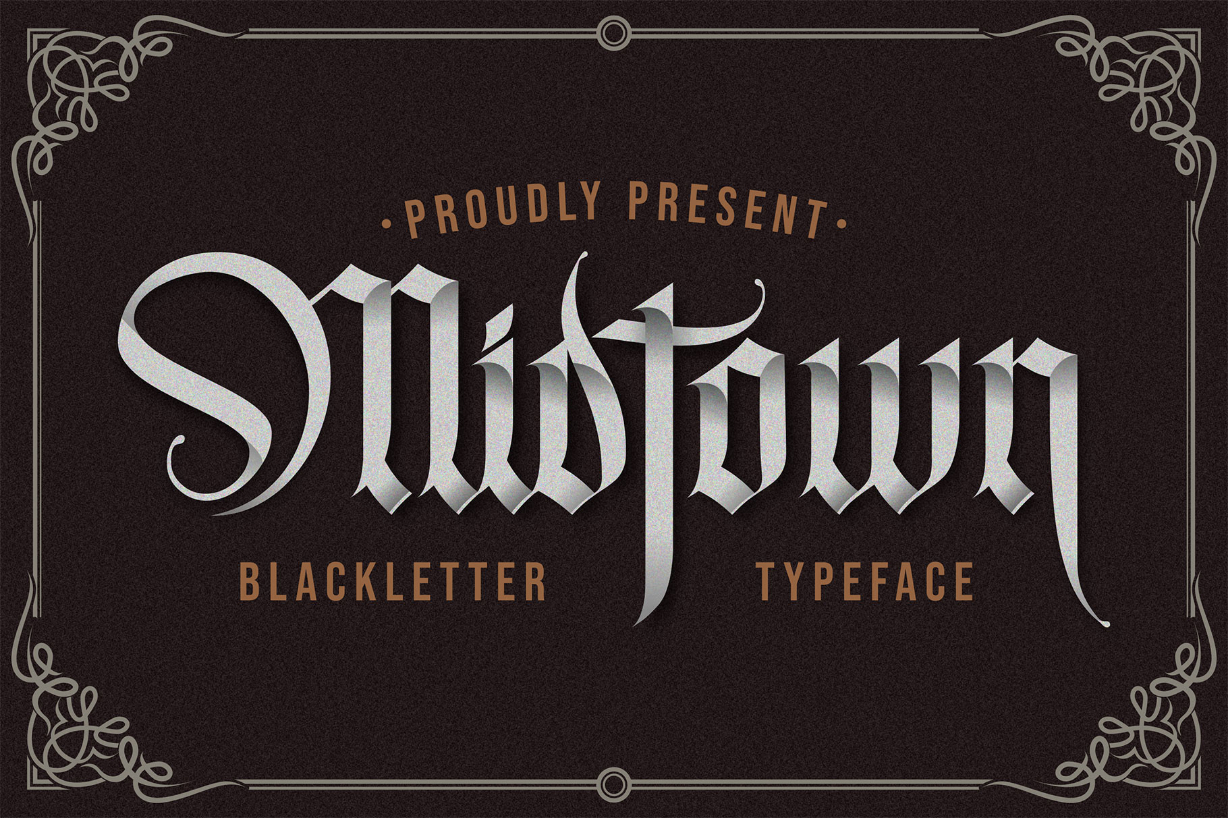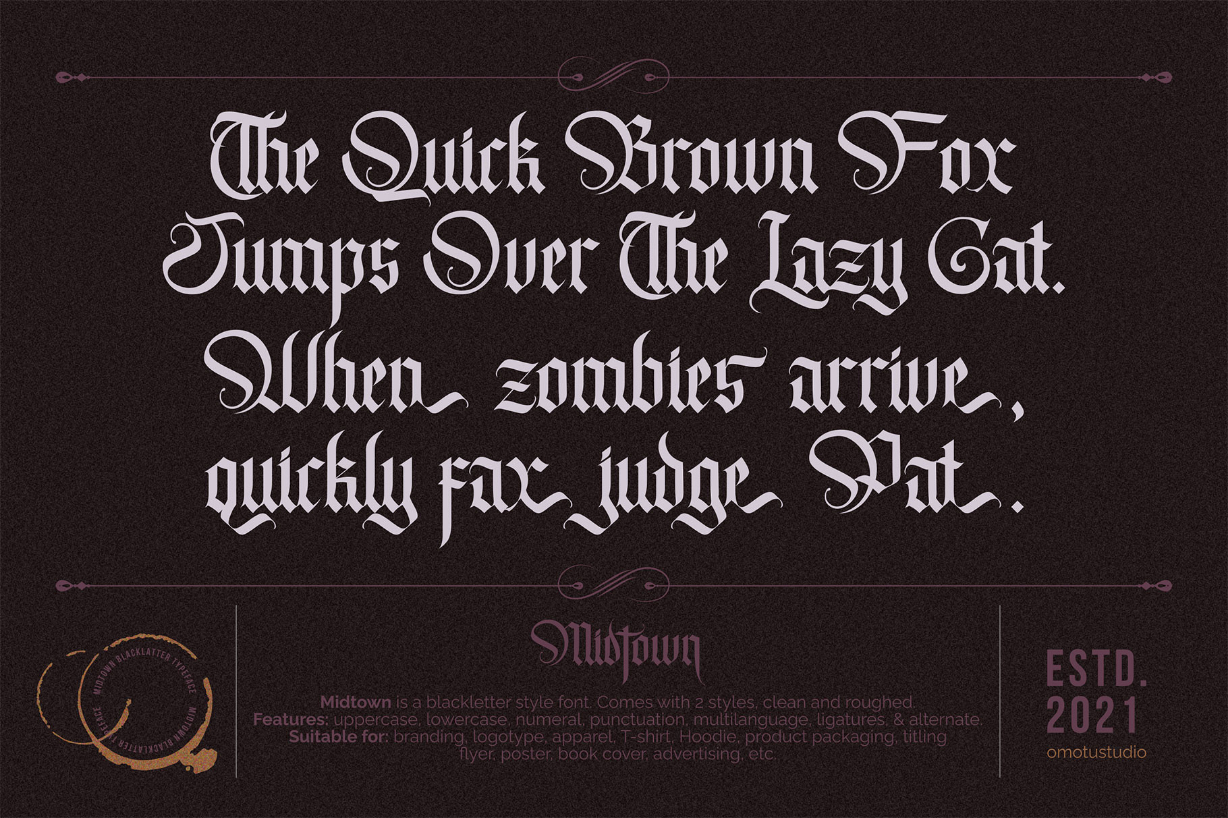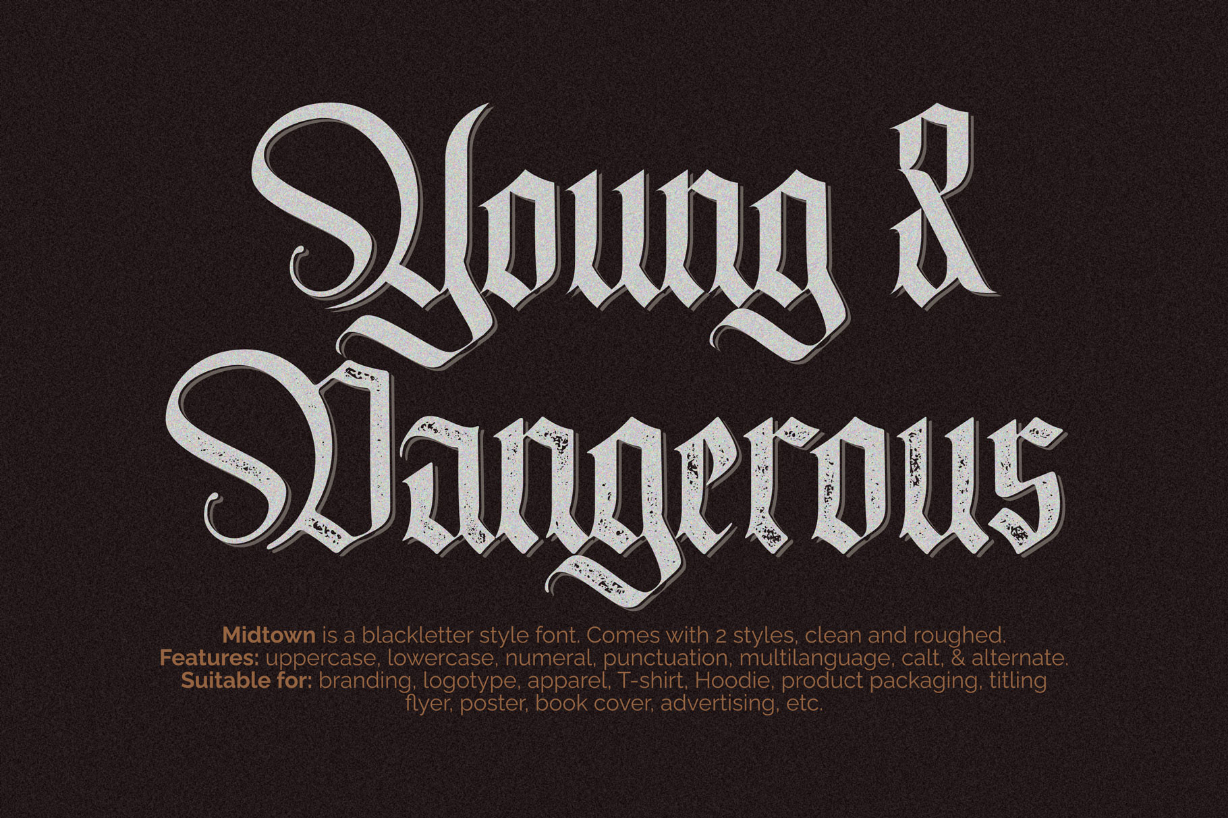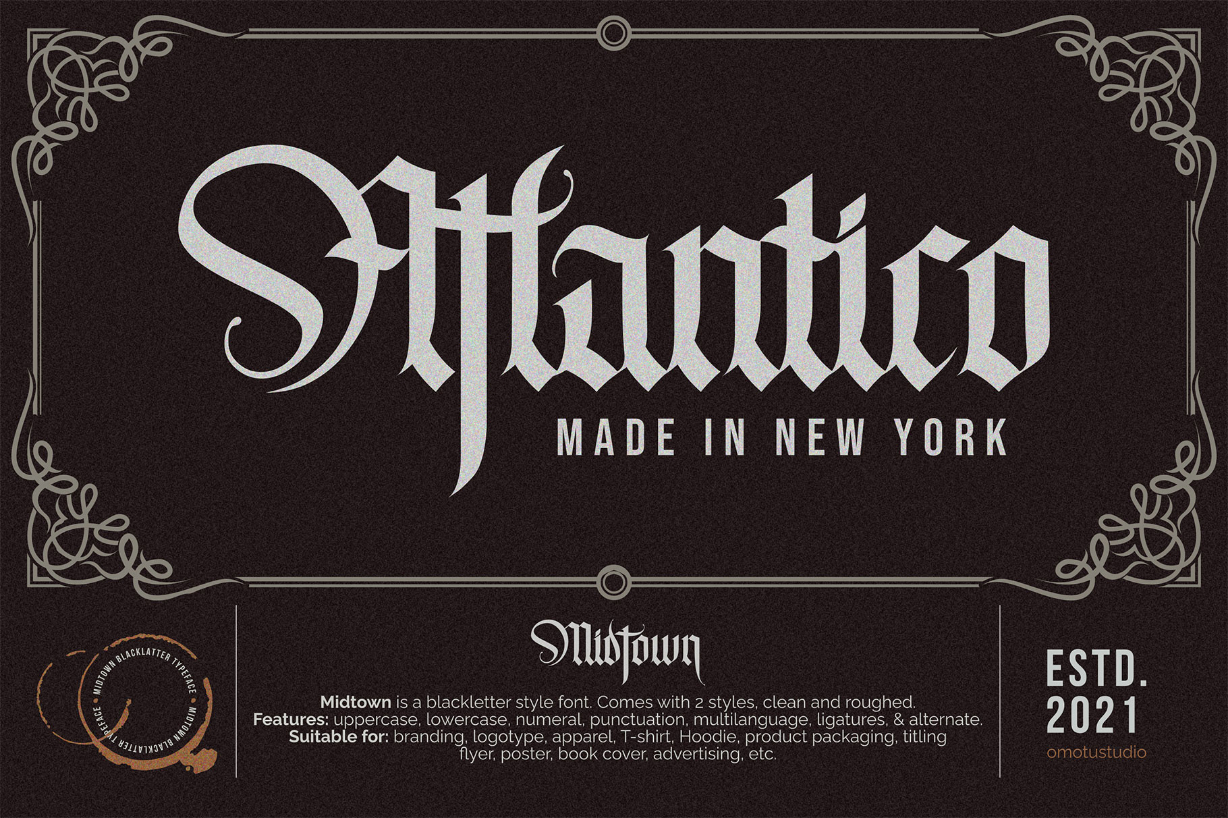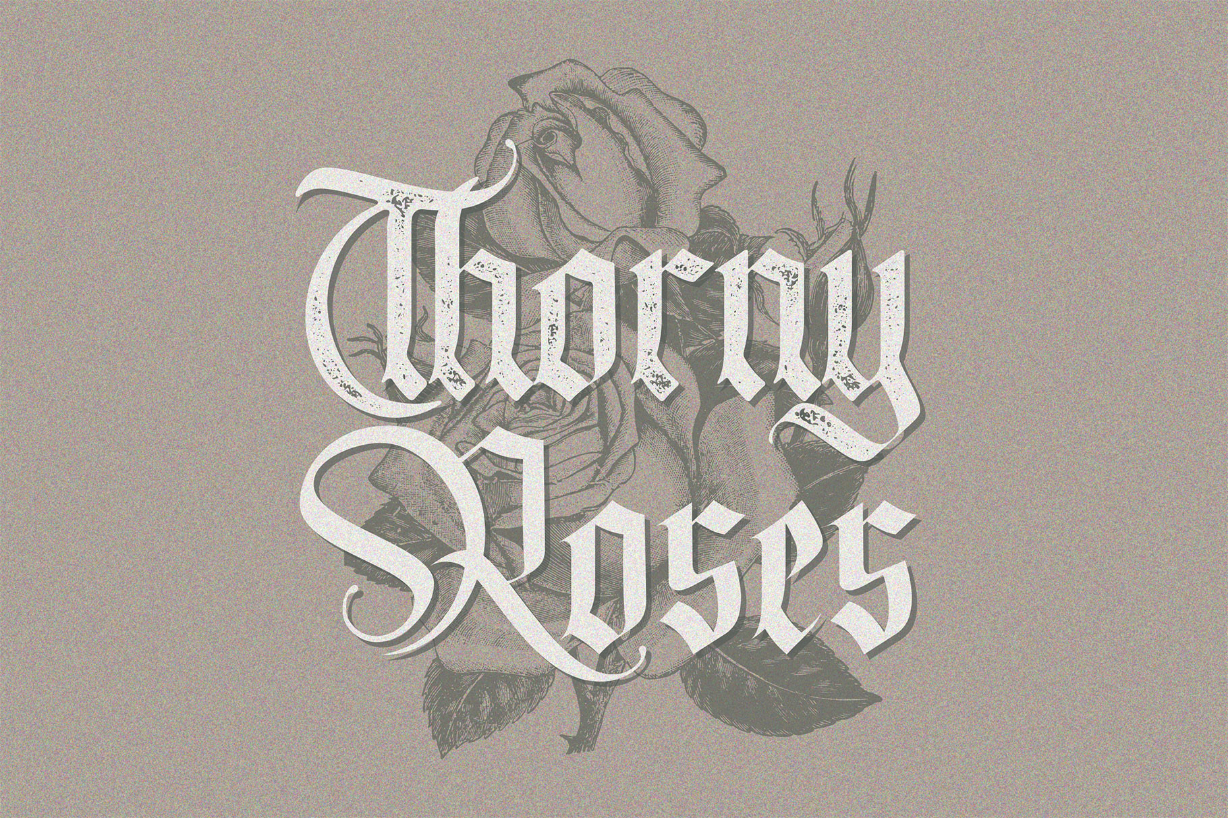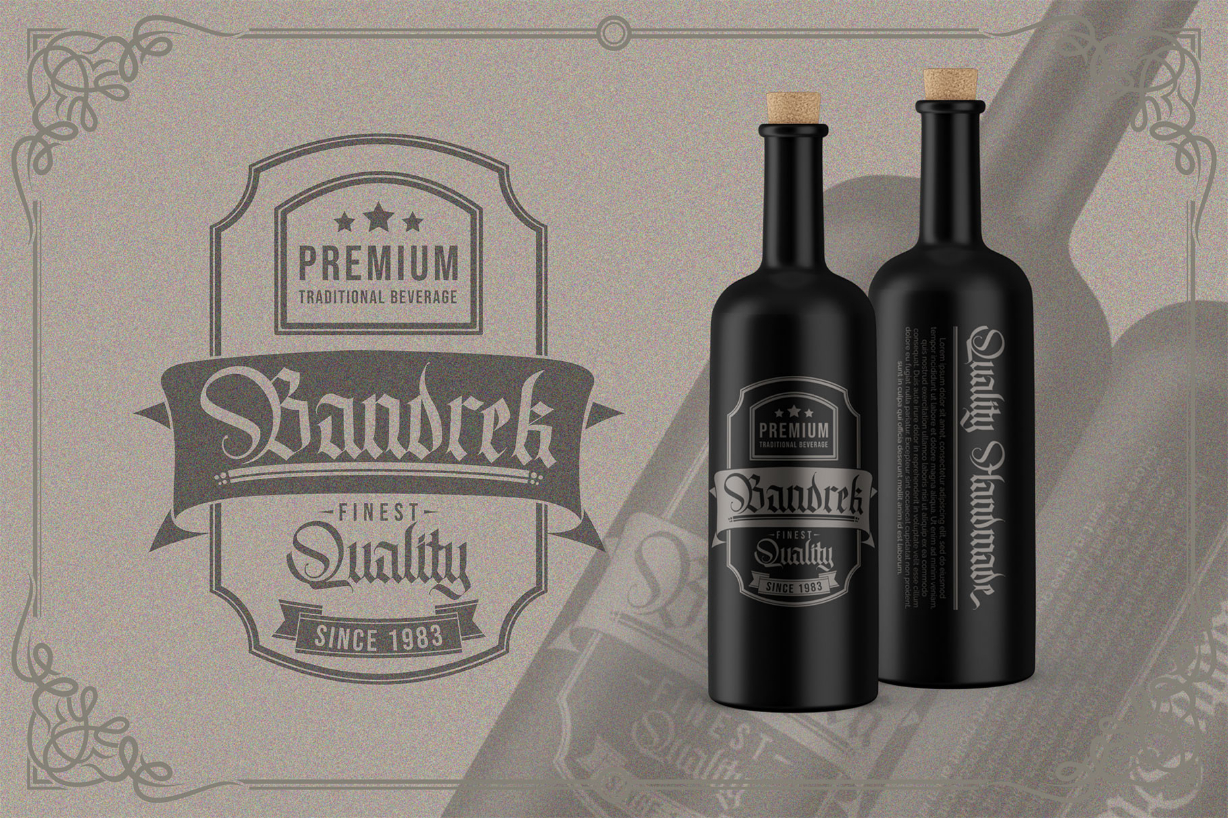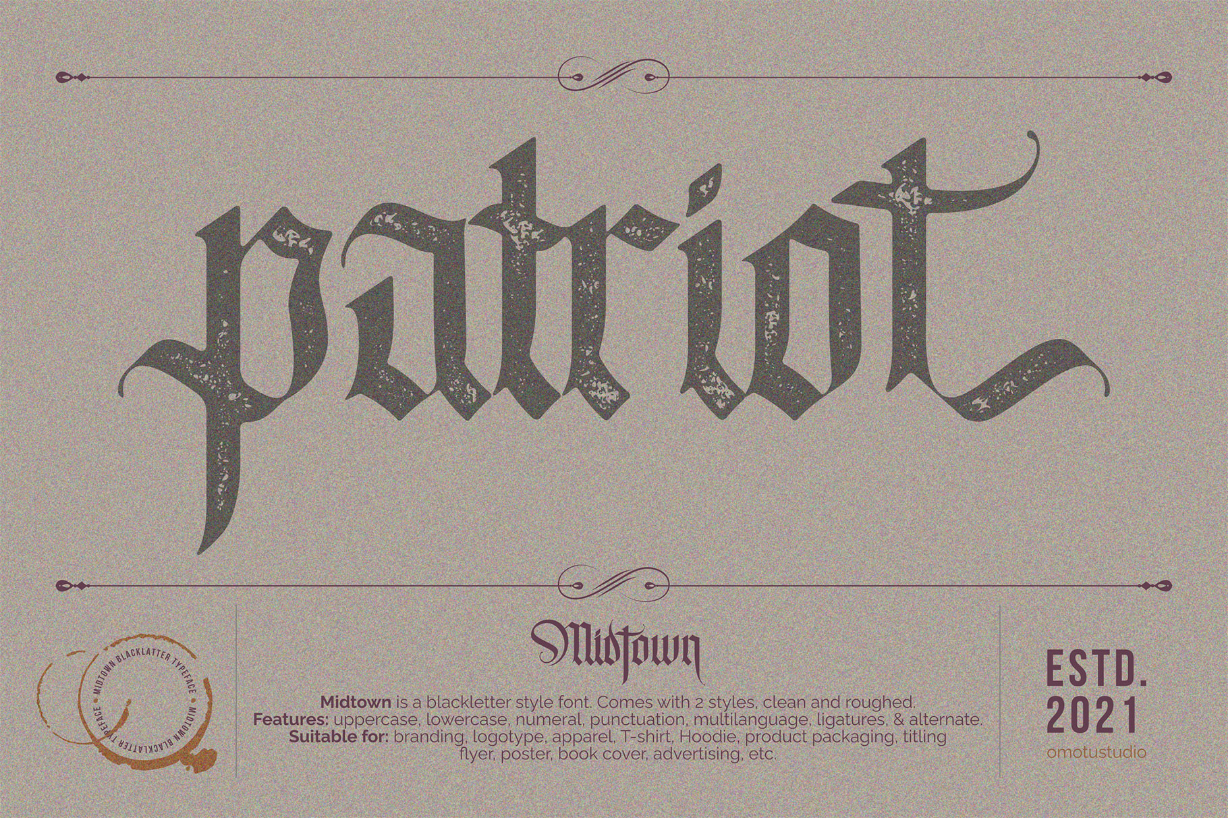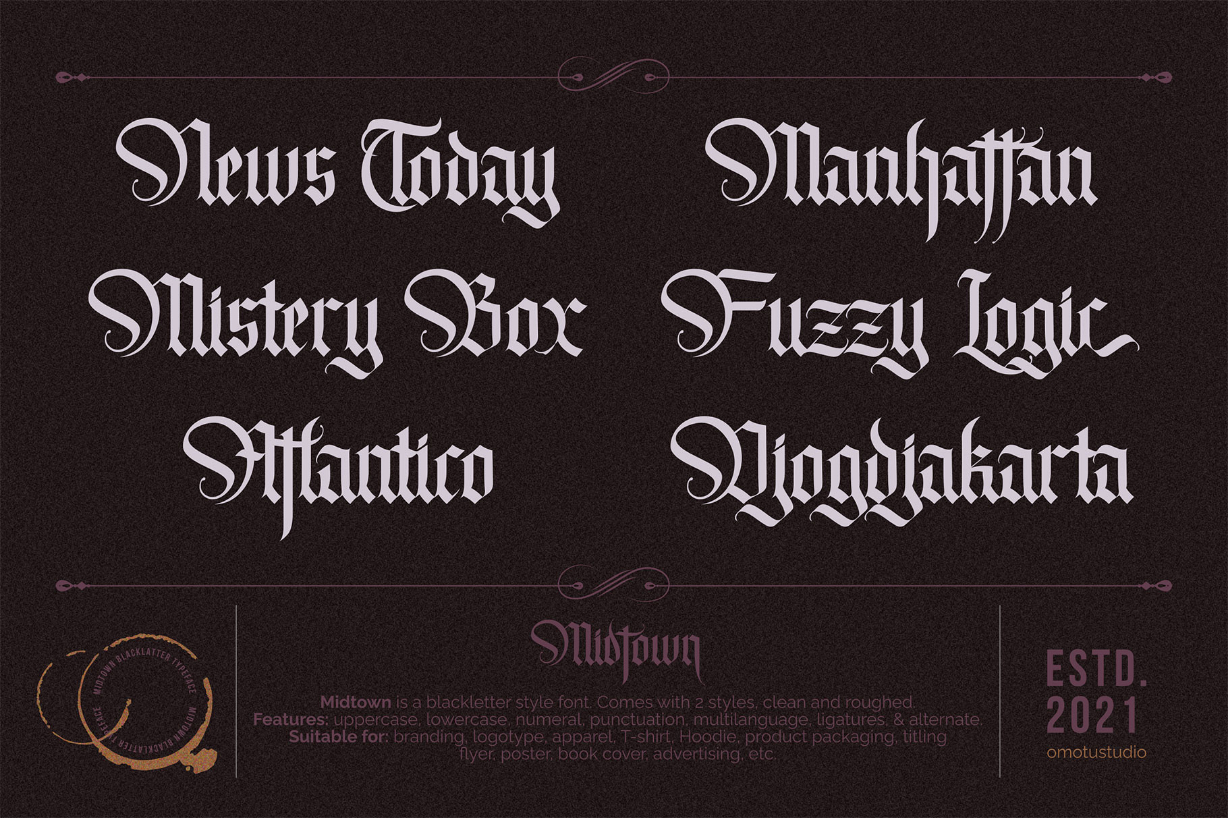
Midtown Font
About Midtown Font
Midtown is a cool, distinct and detailed blackletter font. This font is PUA encoded which means you can access all of the glyphs and swashes with ease! Add it confidently to your favorite creations and let yourself be amazed by the outcome generated.